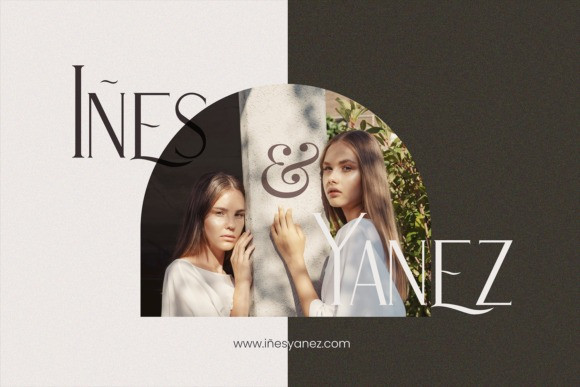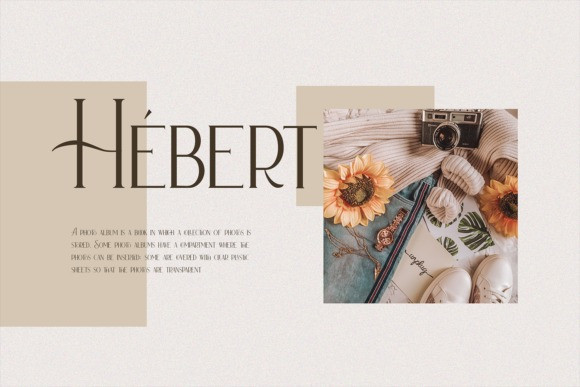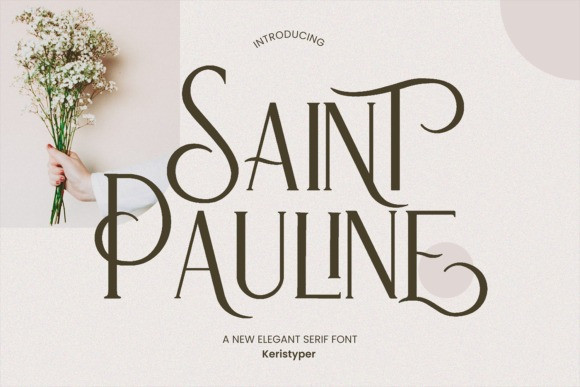
Saint Pauline Font
Saint Pauline Serif Font is a modern and minimalist serif font. Its elegant and vintage aesthetic is inspired by the Art Deco era. The font includes special uppercase letters, alternate characters, and beautiful ligatures, and it is perfect for an elegant logo, packaging, or invitation card design.